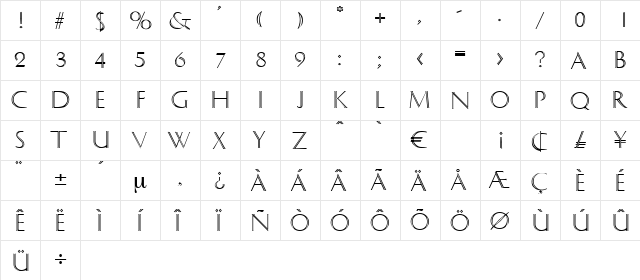
Mykena Regular
Design Context for Mykena Typeface
Mykena takes a measured approach to typography — its balanced proportions and neutral character make it a reliable workhorse for both digital and print work.